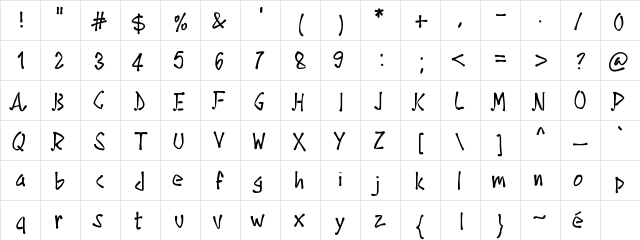
PWCartoonMarker Medium
Design Context for PWCartoonMarker Typeface
PWCartoonMarker has an approachable, lighthearted character — its loose, expressive forms are well-suited to children's content, casual branding, and fun-first design.
Well-suited to food and beverage brands with personality, educational materials, and fun-forward identities.
Font Pairing: Pairs well with a rounded or humanist sans for body copy, maintaining the friendly tone without relying on PWCartoonMarker to carry extended reading.
Pro Tip: Use PWCartoonMarker at larger display sizes where its expressive character can land. Pair with a clean, simple sans for body copy to maintain readability.